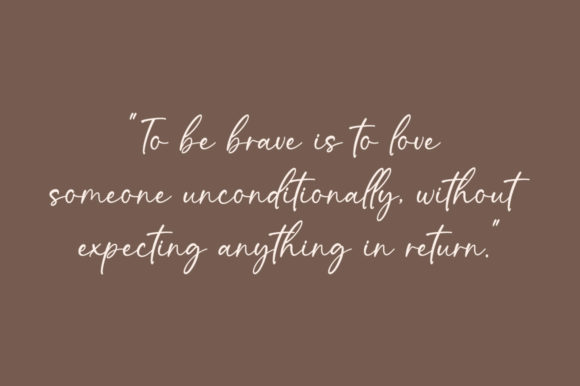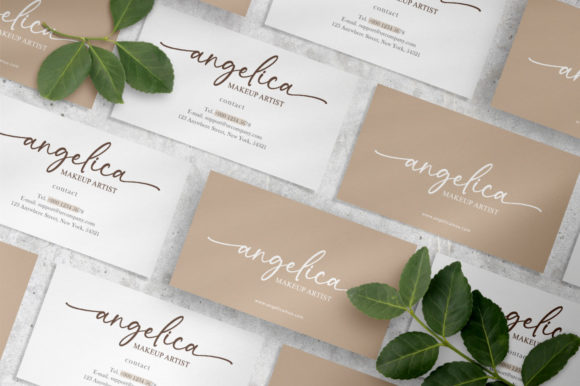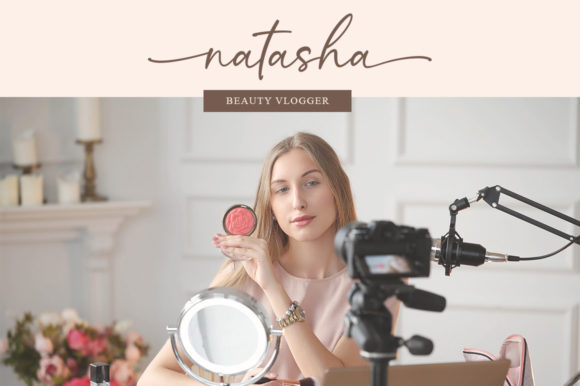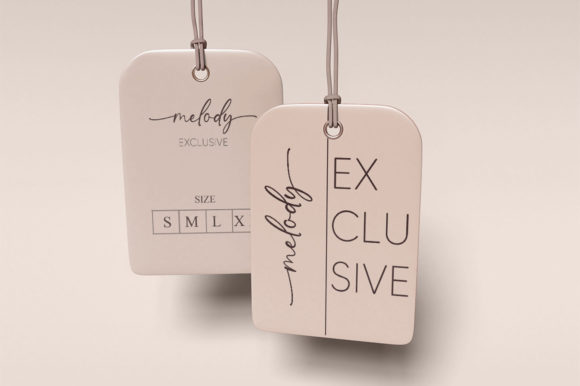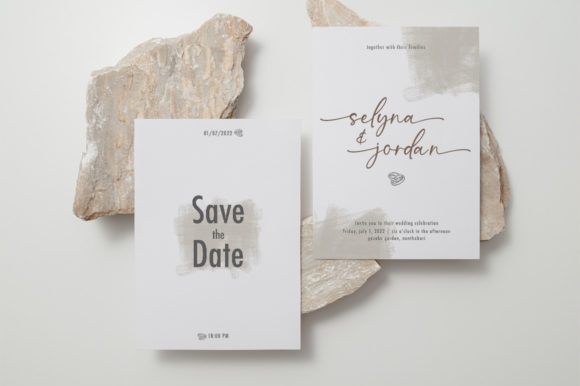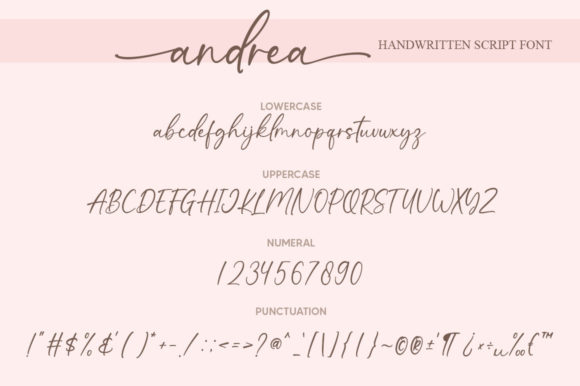
Introducing Andrea Font: Elevate Your Designs with Elegant Script
Are you searching for a font that exudes elegance, sophistication, and a touch of modern flair? Look no further than Andrea Font, a stunning script font that is sure to elevate your designs to new heights. Inspired by timeless classic calligraphy, Andrea boasts a contemporary atmosphere and impeccable form, making it the perfect choice for designers and crafters seeking to add a touch of refinement to their projects.
The Perfect Balance: Not Too Thin, Not Too Thick
One of the standout features of Andrea Font is its expertly crafted balance of thickness and thinness. Not too thin and not too thick, this font strikes the perfect chord, ensuring that your text is always legible and visually appealing. This balance also adds a level of sophistication and elegance, making Andrea suitable for a wide range of applications, from wedding invitations and branding materials to packaging and advertising.
Variety and Versatility: The Key to Creative Freedom
Andrea Font is designed to offer a high level of versatility, with a range of glyphs and swashes at your disposal. This means you can experiment with different styles and combinations to find the perfect look for your project. Whether you’re creating a romantic wedding invitation or a bold marketing campaign, Andrea’s varied and balanced design ensures that your text will always be eye-catching and engaging.
Andrea Font is PUA (Private Use Area) encoded, making it incredibly easy to access all of the glyphs and swashes. This means you can quickly and easily add flourishes and decorative elements to your text, taking your designs to the next level. With PUA encoding, you can say goodbye to tedious font editing and hello to a world of creative freedom.
Inspiration from Timeless Classic Calligraphy
Andrea Font draws inspiration from the world of classic calligraphy, where the art of beautiful handwriting is revered. With its elegant lines, flowing curves, and precise letterforms, Andrea captures the essence of traditional calligraphy while injecting it with a modern twist. This blend of old and new makes Andrea a truly unique and captivating font that will set your designs apart.
Endless Design Possibilities with Andrea Font
So, what can you create with Andrea Font? The possibilities are endless! Here are just a few ideas to get you started:
• Wedding invitations and stationery: Add a touch of romance and sophistication to your wedding designs with Andrea’s elegant script.
• Branding and packaging: Use Andrea to create eye-catching logos, labels, and packaging that reflects your brand’s personality.
• Advertising and marketing: Make a statement with Andrea’s bold and elegant text, perfect for headlines, slogans, and taglines.
• Digital and print media: Use Andrea to add a touch of elegance to your blog posts, articles, and social media graphics.
Conclusion: Elevate Your Designs with Andrea Font
In conclusion, Andrea Font is a stunning script font that offers the perfect blend of elegance, sophistication, and modern flair. With its balanced and varied design, PUA encoding, and inspiration from timeless classic calligraphy, Andrea is the perfect choice for designers and crafters seeking to elevate their designs. Whether you’re working on a wedding invitation, branding project, or marketing campaign, Andrea Font is sure to make your text shine. So why wait? Discover the beauty of Andrea Font today and take your designs to new heights!